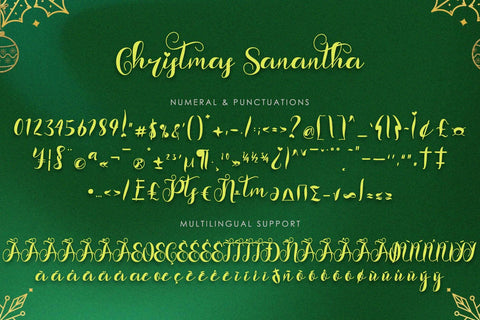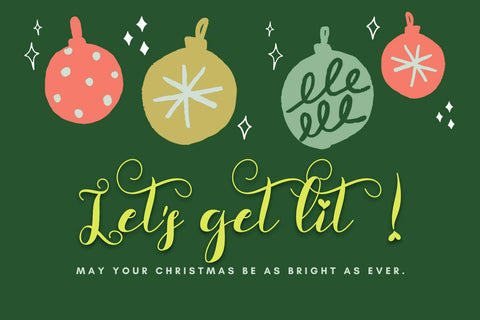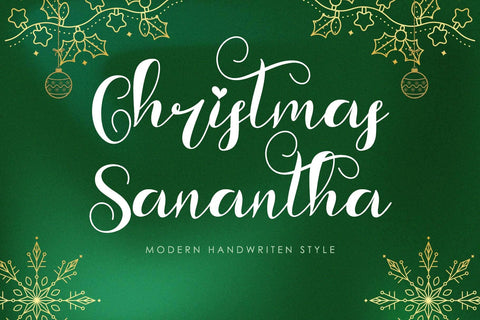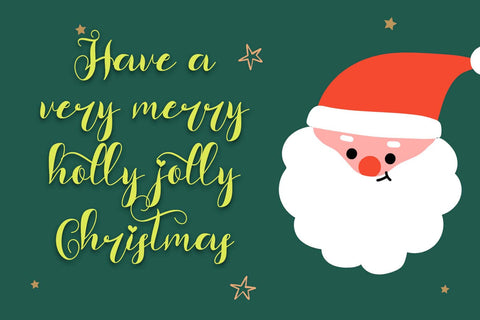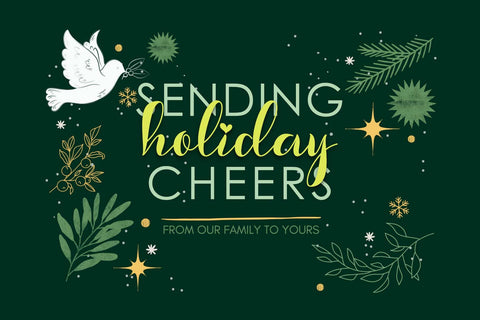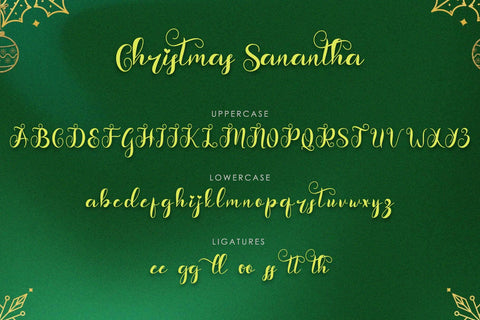
Christmas Sanantha
"Christmas Sanantha" is a beautiful and lovely handwritten font. This font is equipped with uppercase, lowercase, ligatures, numerals, punctuations and multilingual support. It is perfect for Christmas, autumn, fall, wedding, invitations, Valentine, Halloween, back to school and others.